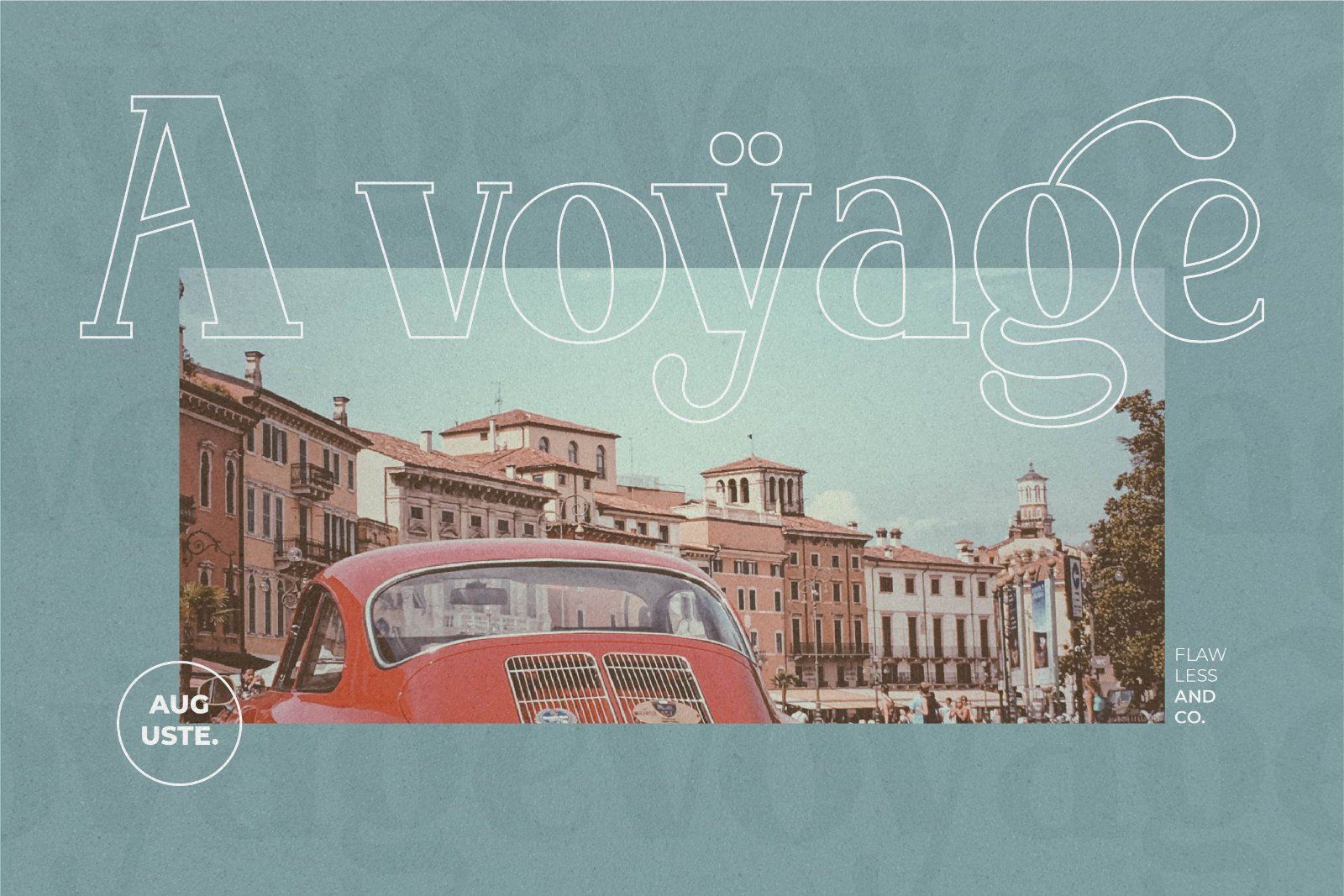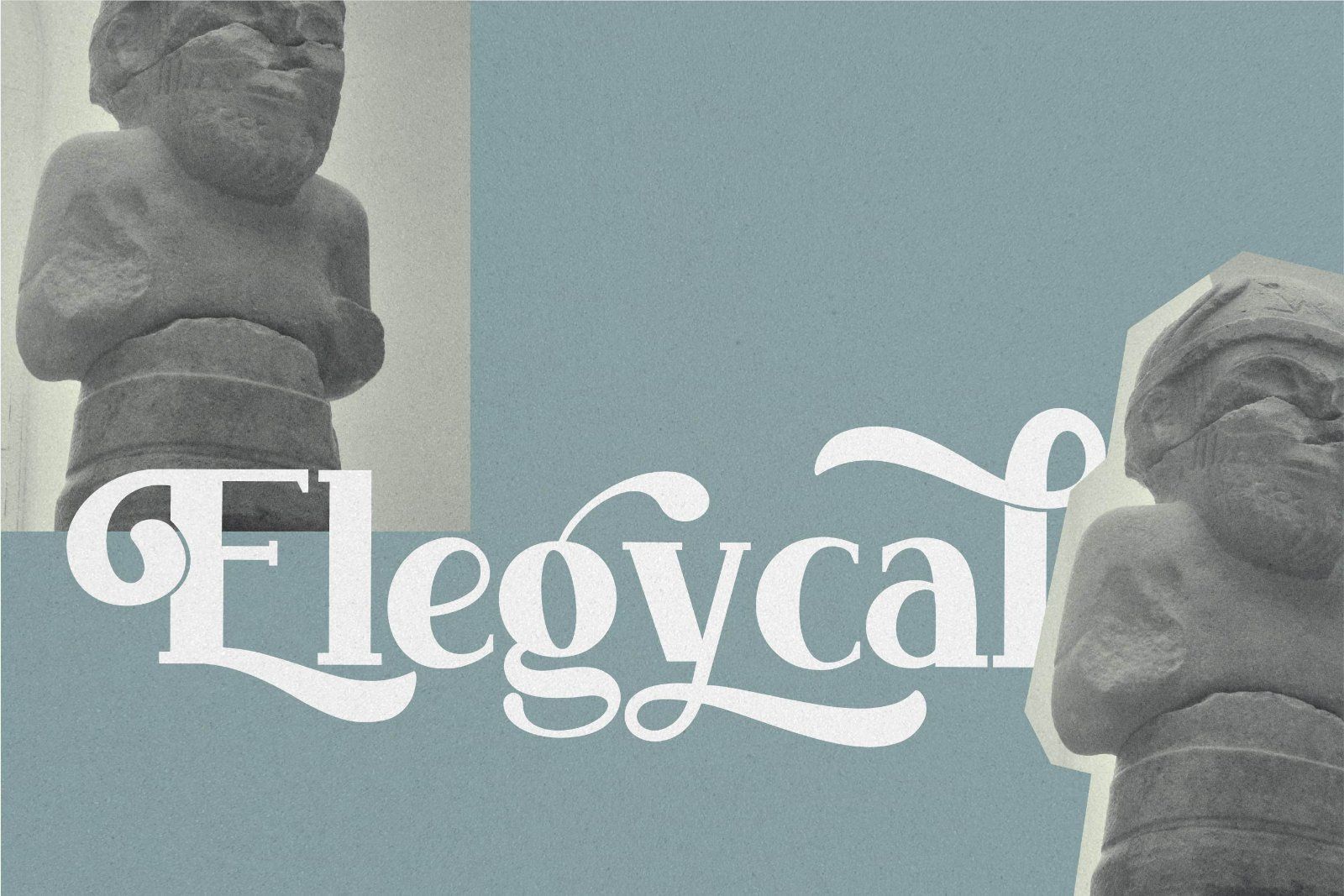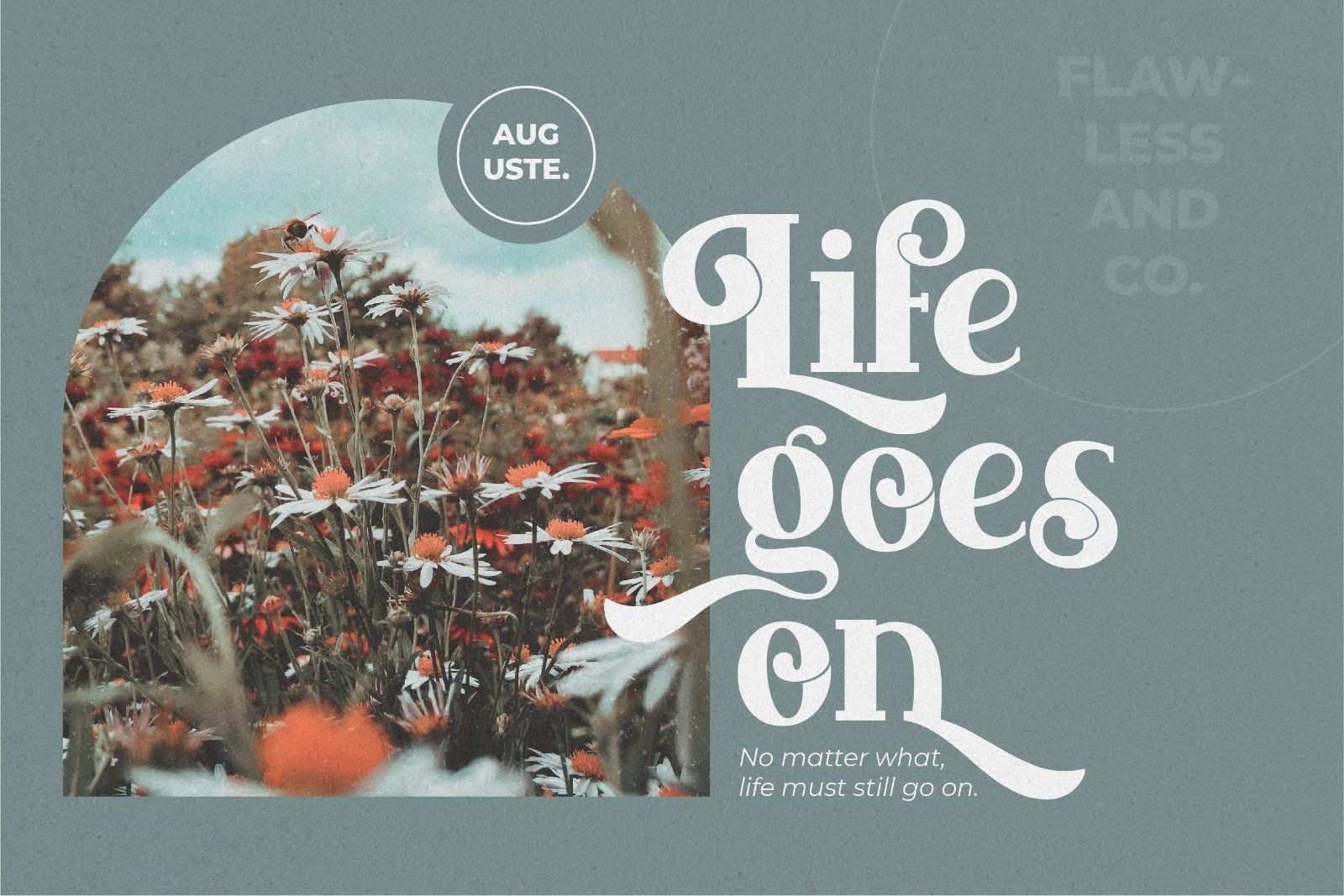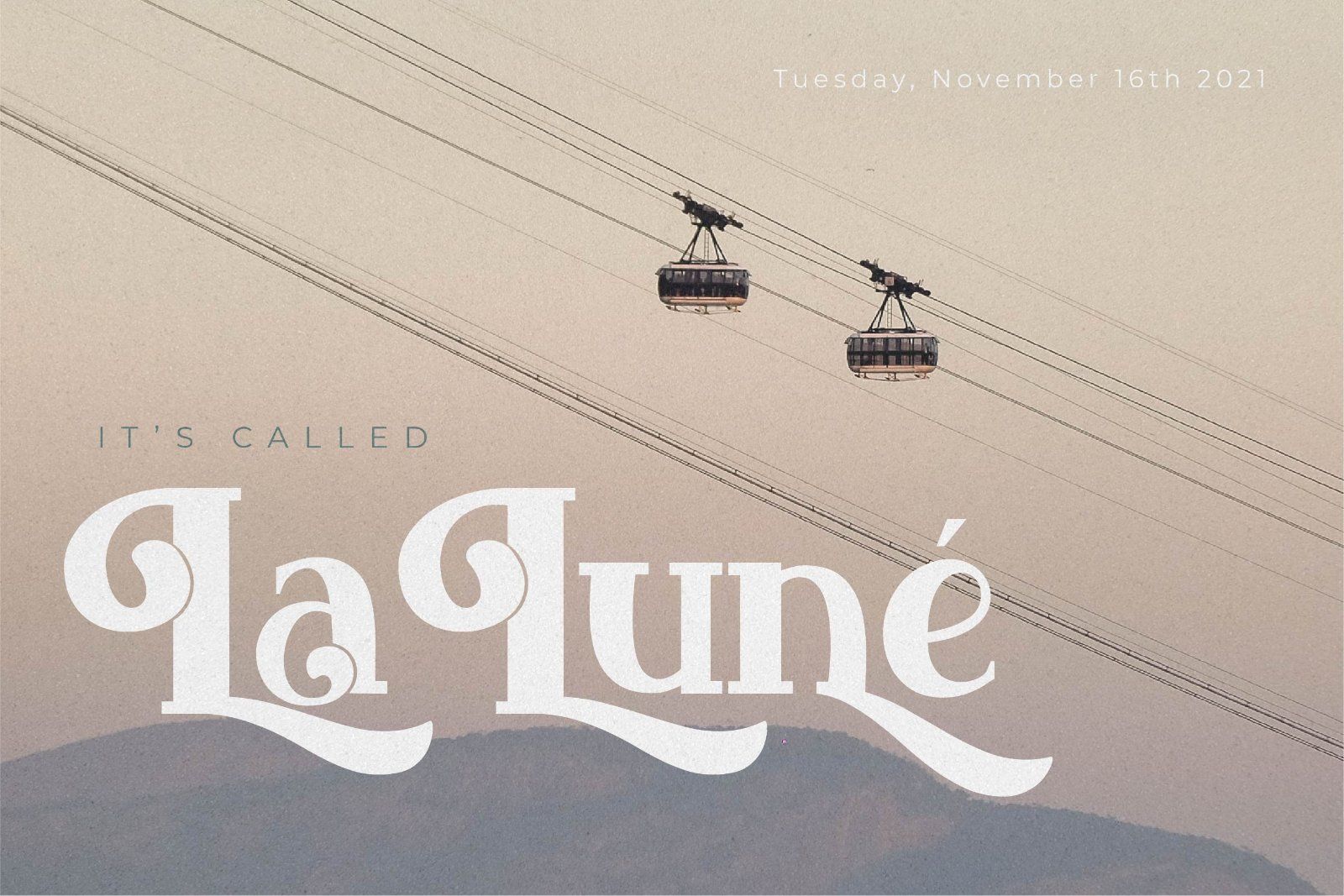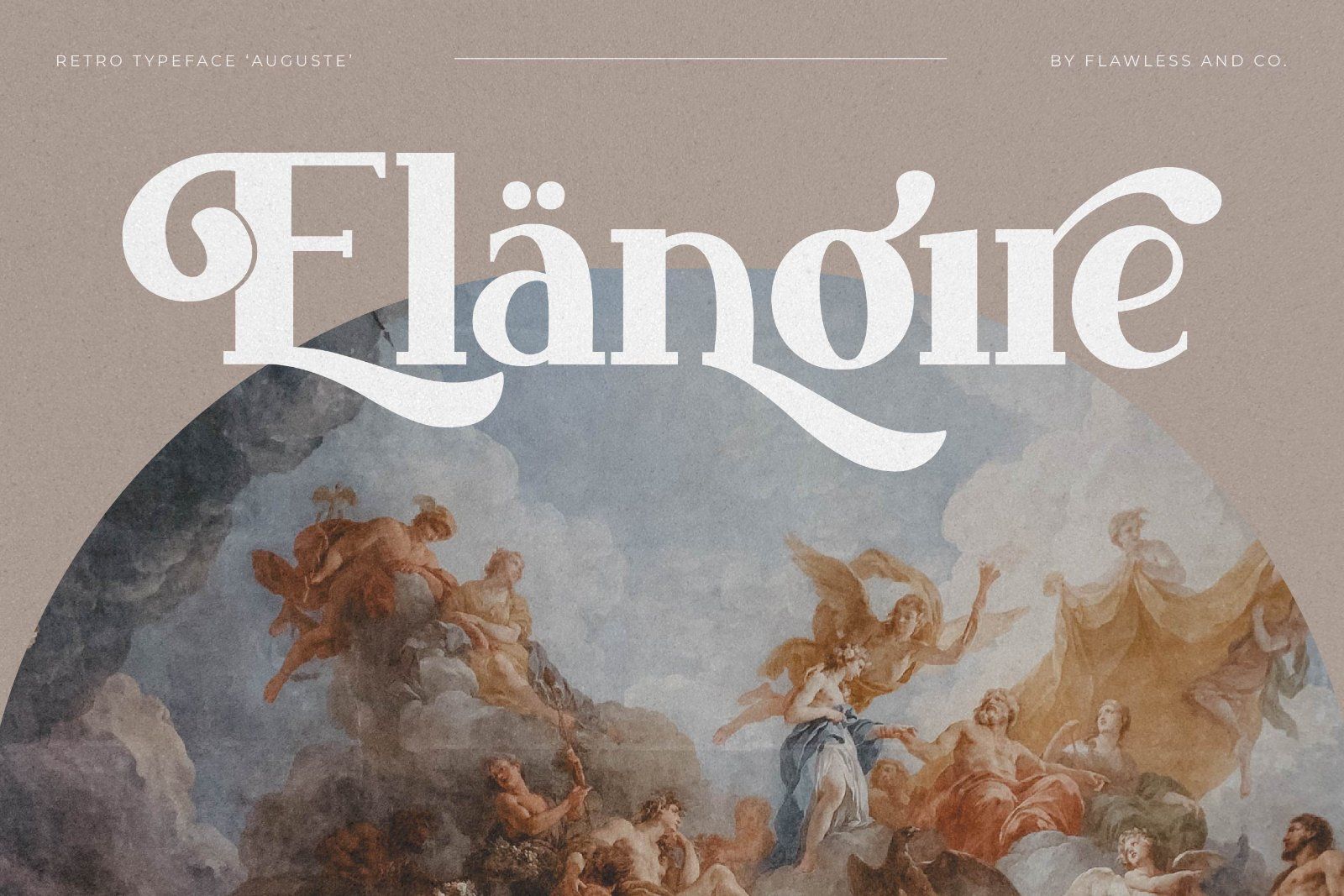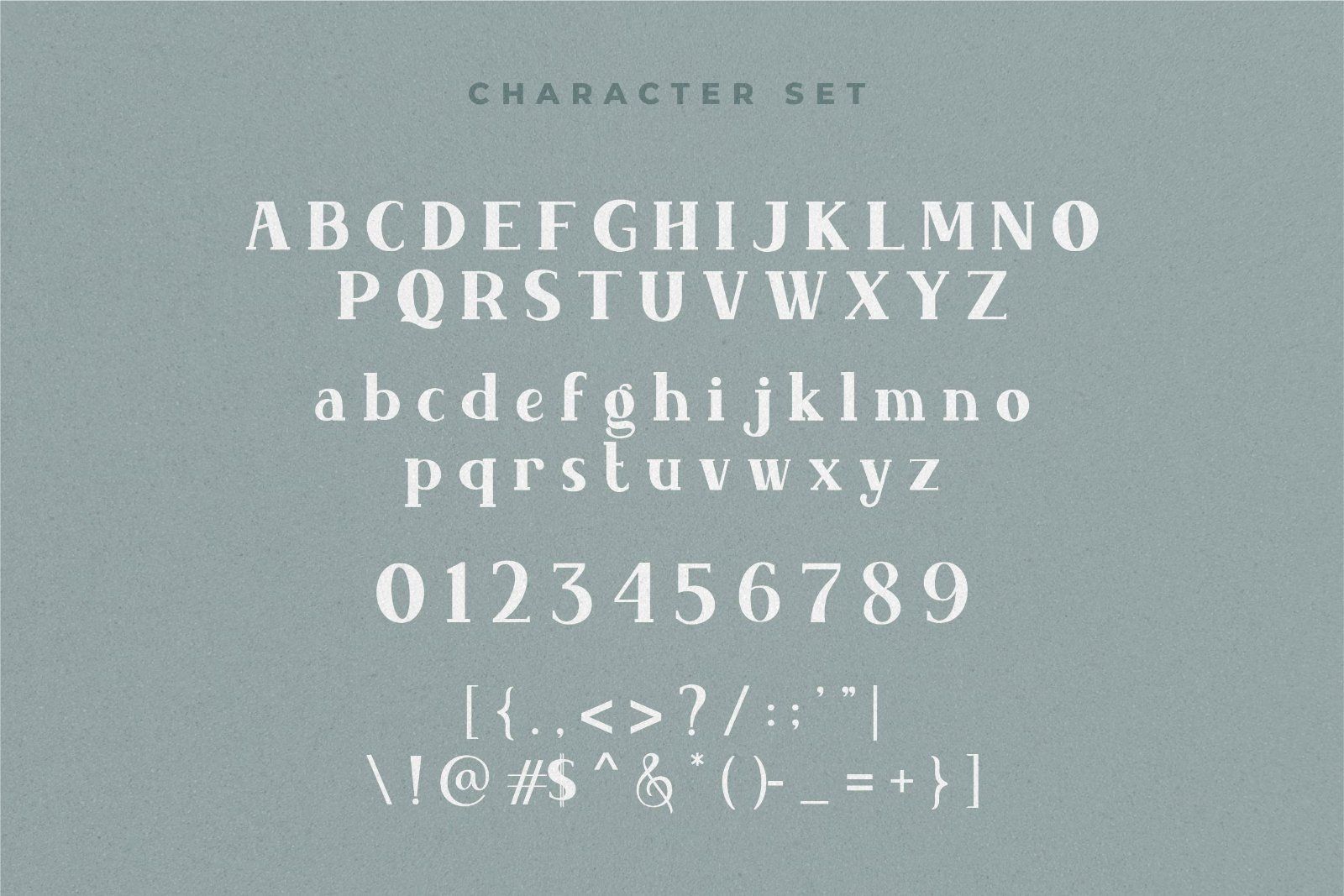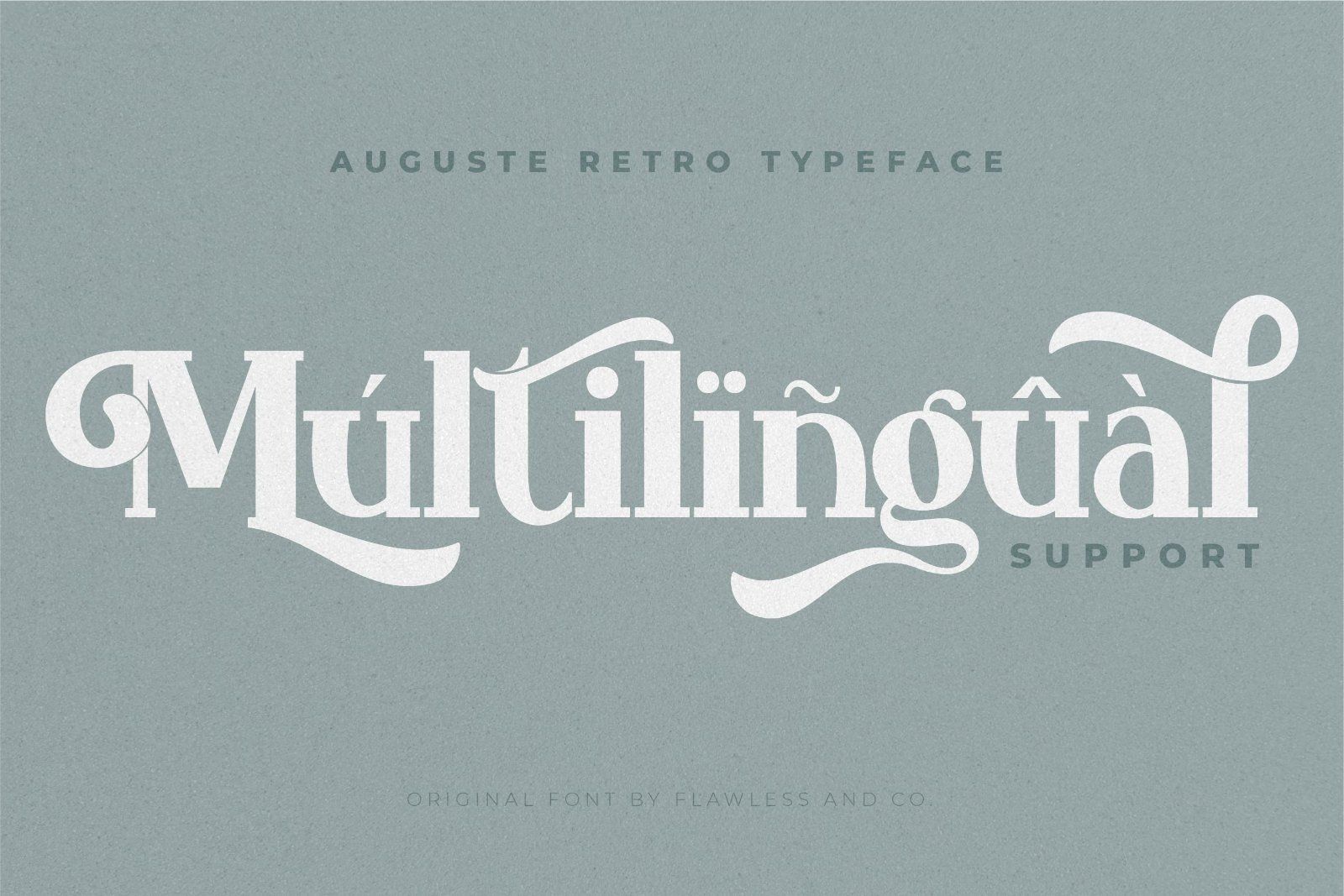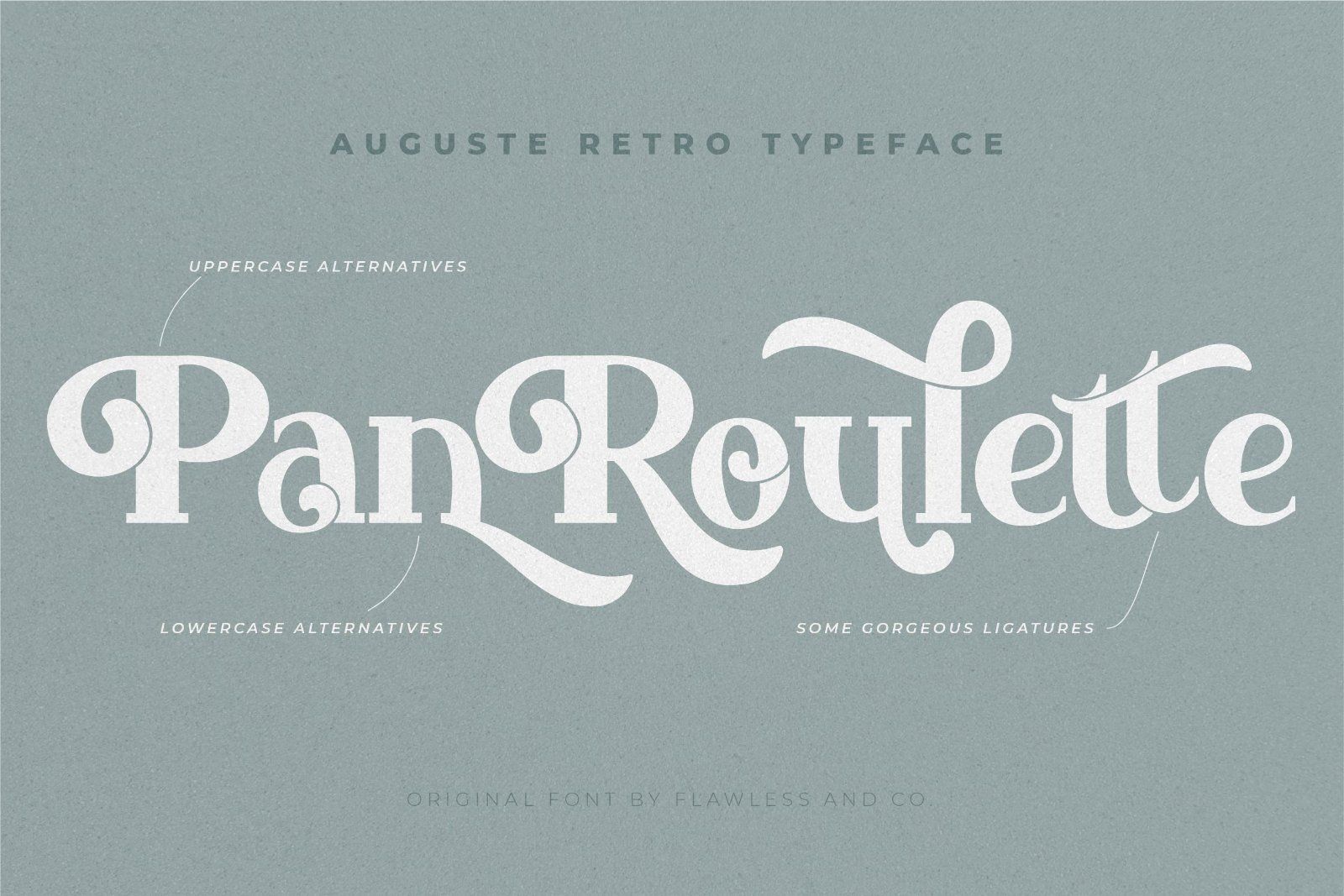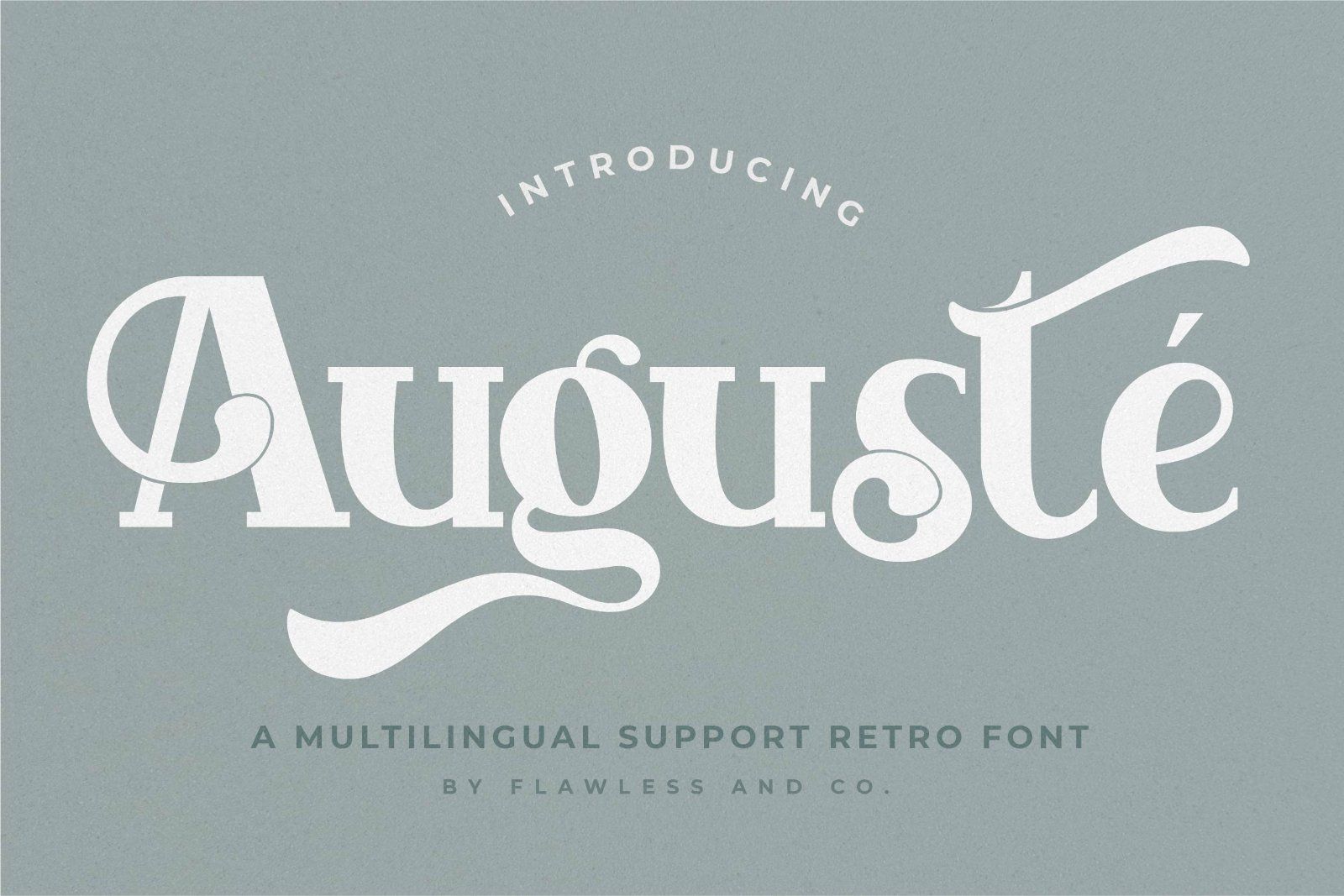
Auguste is a beautiful retro serif typeface that blends classic elegance with a distinctive vintage character. Its bold serif letterforms, graceful curves, and decorative swash details create a timeless yet expressive appearance, making it perfect for designs that need a sophisticated and eye-catching visual identity.
• Uppercase alphabet A-Z
• Lowercase alphabet a-z
• Alternate Character
• Numbers 0-9
• Some punctuation